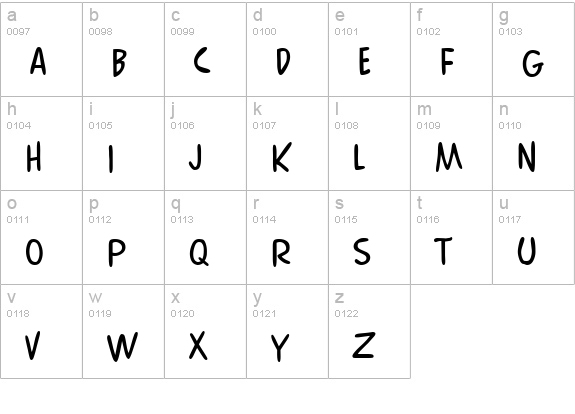
Harpune font is a stunning display typeface that exudes elegance and sophistication. With its sleek lines and distinctive curves, this font is perfect for adding a touch of class to any design project. Whether you're creating a logo, poster, or branding materials, Harpune font will make your text stand out with its unique charm. The best part? Harpune font is completely free to download at FontsMarket.com. This means you can easily access this beautiful font and use it in your projects without any cost. Don't miss out on the opportunity to enhance your designs with the timeless beauty of Harpune font. Download it today and let your creativity shine!